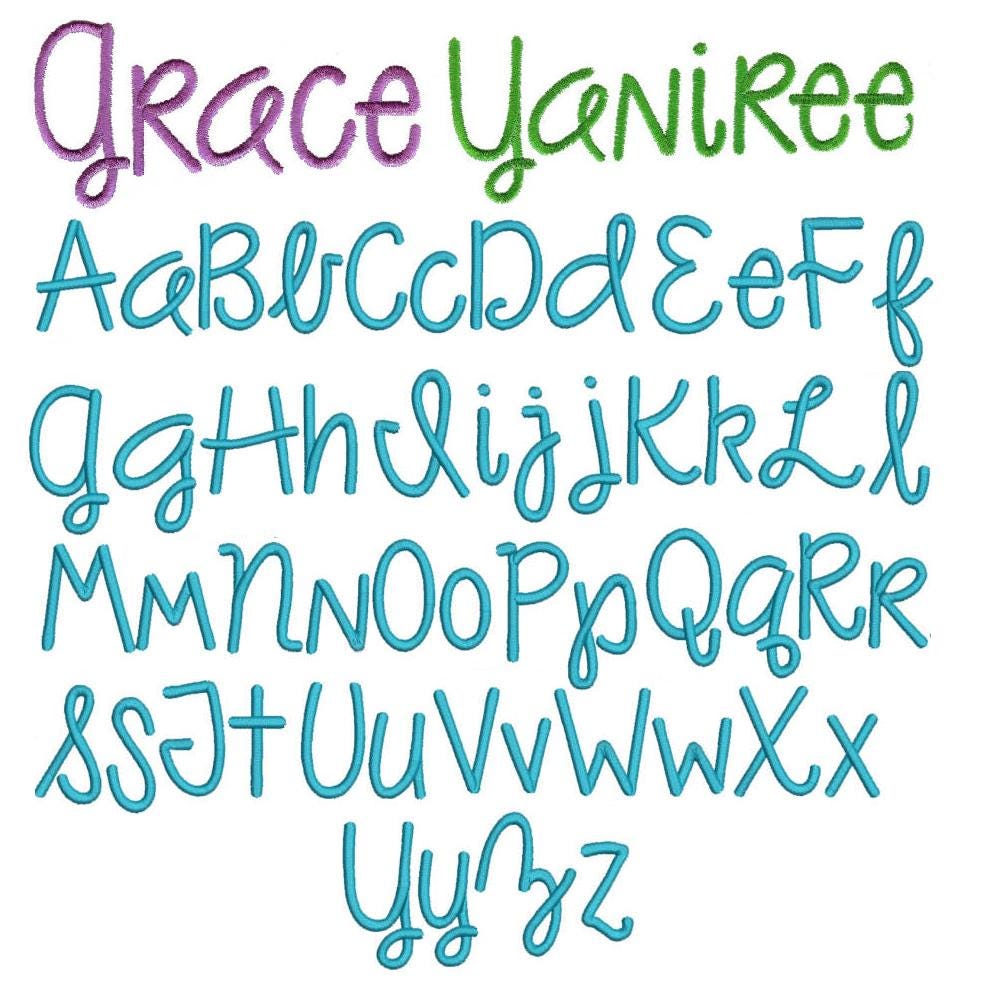
As The Deer Satin Stitch Embroidery Font
An adorable and trendy font! All of our fonts are 100% manually digitized to bring you excellent stitch quality.